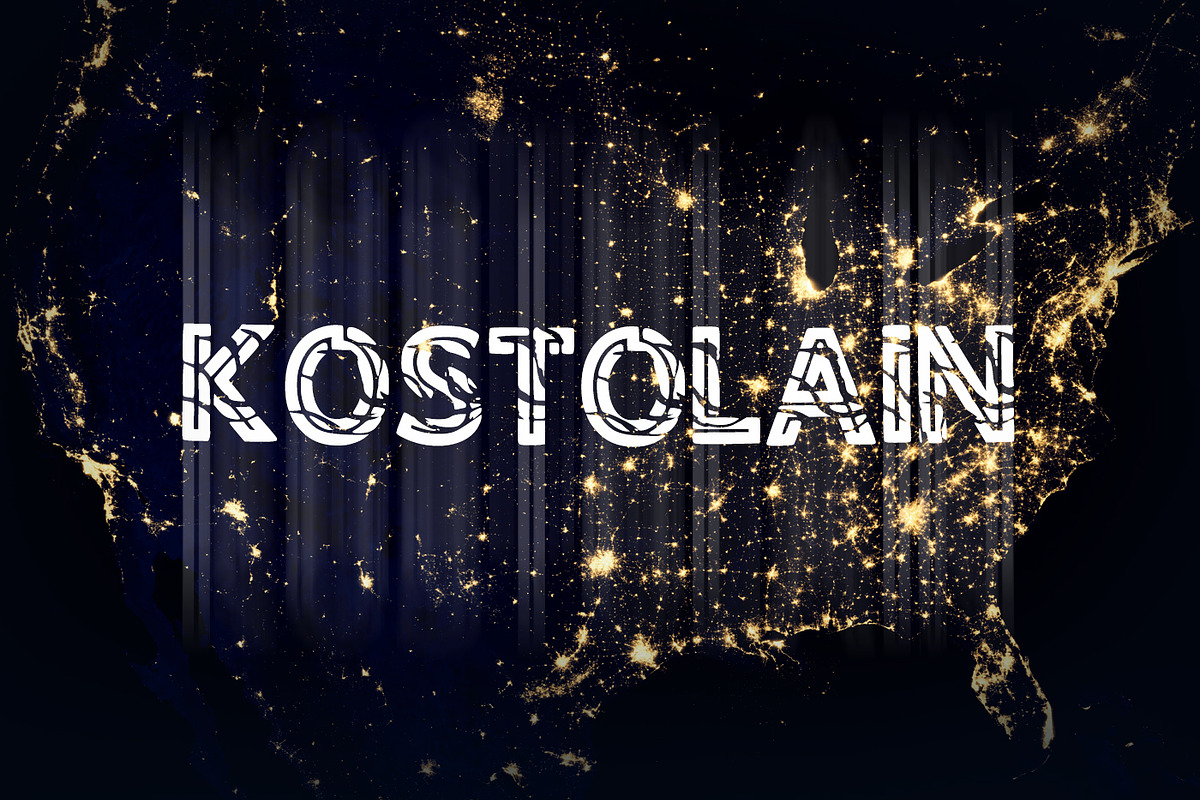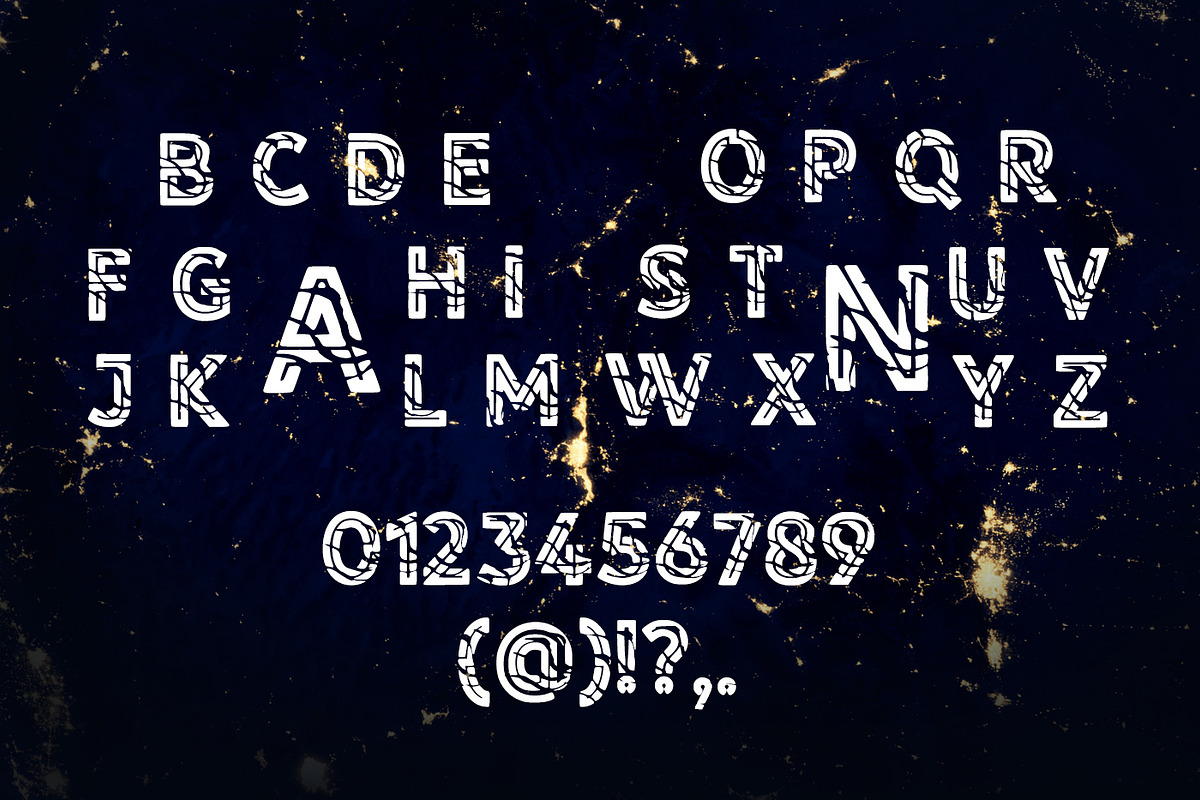
Kostolain Font
Kostolain Font by DmDesignsStoreArt is a font selected for branding, posters, packaging, typography.
Why Kostolain Font is worth a look
Kostolain Font by DmDesignsStoreArt fits naturally into Branding, posters, packaging, typography.